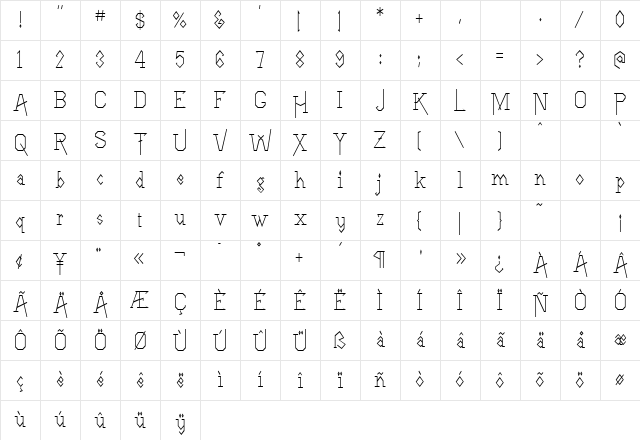
LineDrive Plain Free Font
LineDrive Plain
Design Context for LineDrive
LineDrive is a composed and adaptable typeface that performs quietly and consistently across a wide range of design contexts.